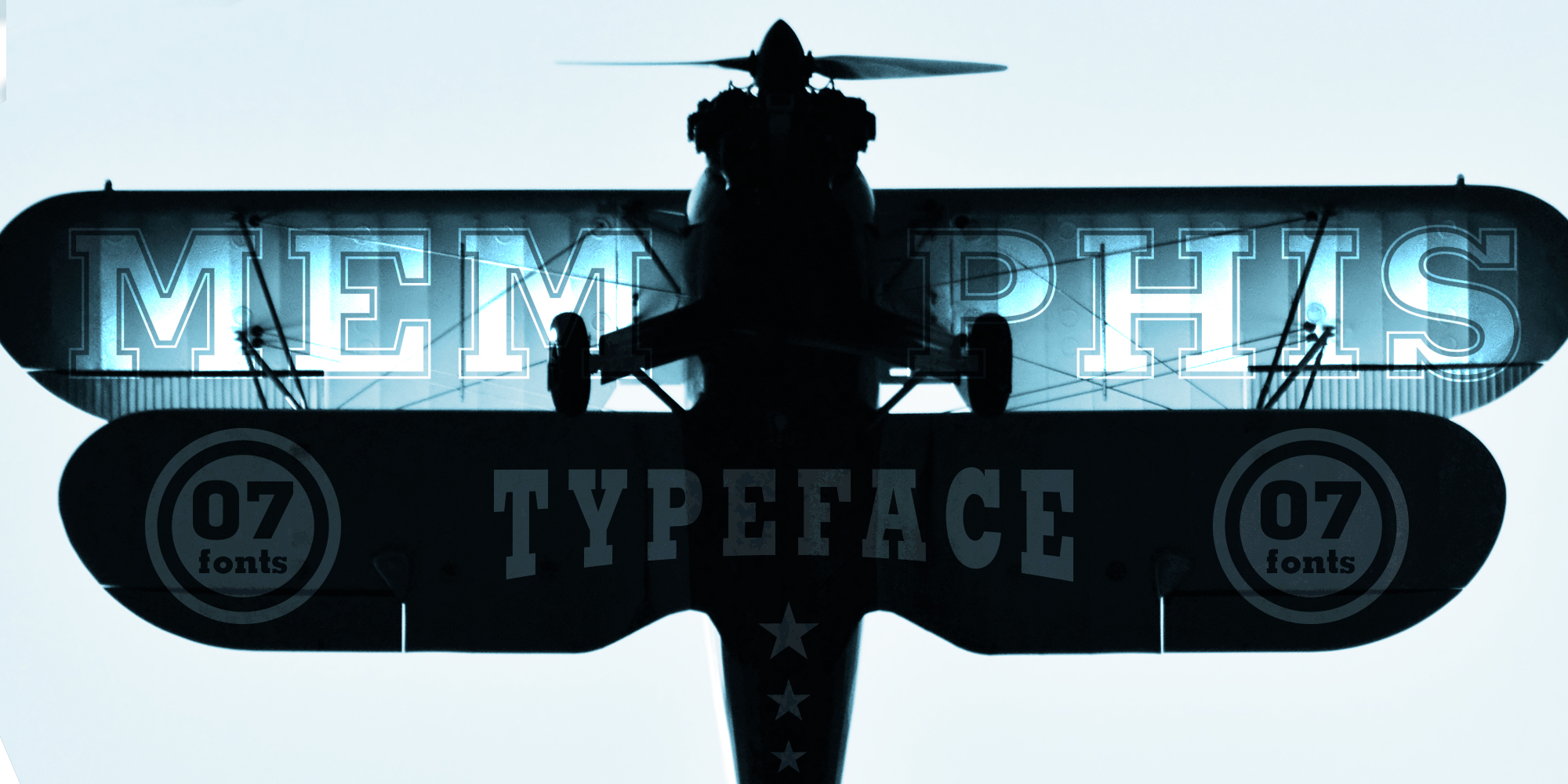
Memphis Font is perfect for bold headlines, advertising campaigns, poster designs, retro branding projects, magazine covers, corporate logos, signage systems, architectural presentations, fashion brand materials, and contemporary marketing communications. This powerful slab serif typeface brings commanding presence and geometric precision to impactful design applications.
What makes Memphis Font so exciting is its perfect embodiment of geometric modernism with its strong, rectangular slab serifs that create unmatched visual impact and authority. The font features consistent stroke weights and precise geometric construction that reflects the rational design principles of the Bauhaus movement. Each letterform displays perfect balance between boldness and legibility, with clean lines and uniform spacing that ensure exceptional readability across all sizes and applications. The distinctive slab serif construction gives Memphis Font its characteristic strength and stability, making it ideal for brands and communications that need to project confidence, reliability, and modern sophistication.
The Memphis Font family includes comprehensive weights and styles: Light, Regular, Medium, Bold, and Extra Bold variations, each available in Roman and Oblique cuts. The extensive character set encompasses complete Latin alphabet support, numerals, punctuation marks, mathematical symbols, currency signs, and broad international language coverage. Professional features include carefully crafted spacing, contextual alternates, and geometric consistency that maintains visual harmony across all weights and sizes.
Whether you're creating bold advertising materials, contemporary brand identities, or architectural presentations, Memphis Font Free Download delivers the geometric strength and modern authority that commands attention in today's competitive visual landscape. Its exceptional versatility makes it suitable for both large-scale display applications and readable text settings, while its timeless geometric principles ensure lasting visual appeal. The font's combination of mathematical precision and visual impact makes it indispensable for designers who need typography that projects strength, clarity, and unwavering confidence.